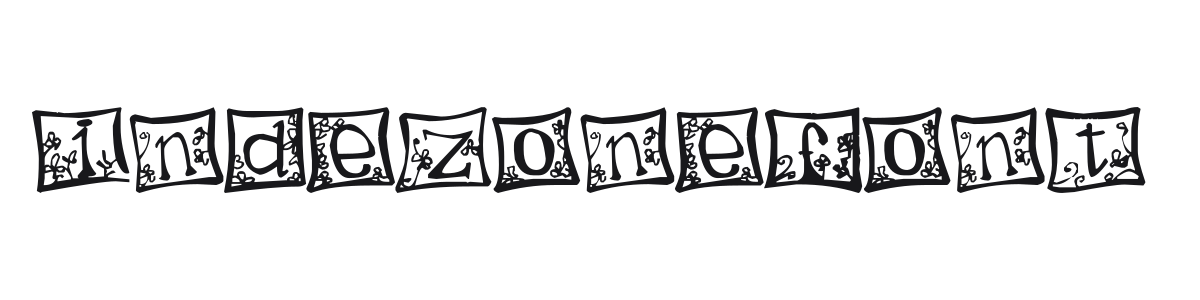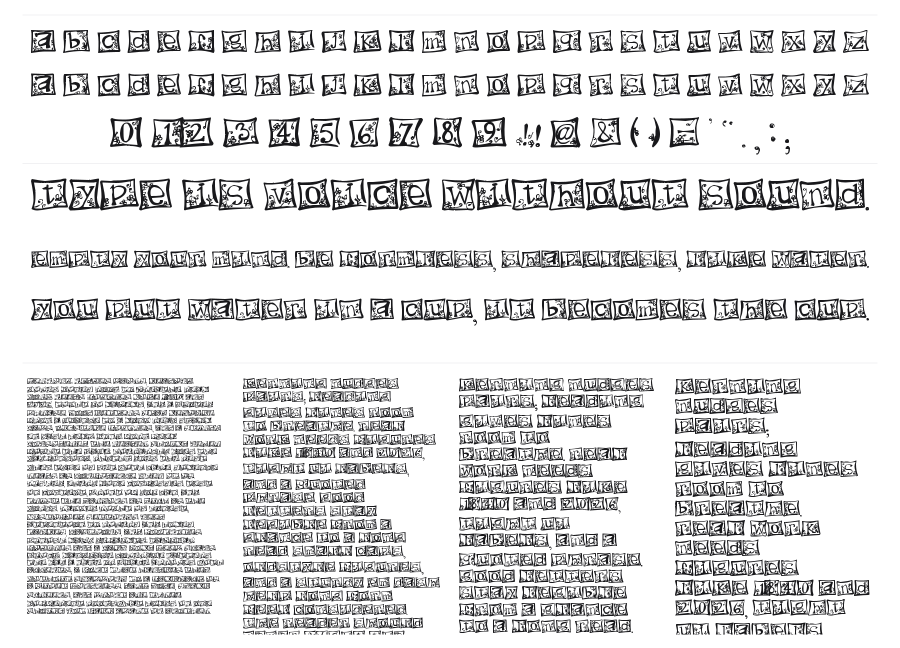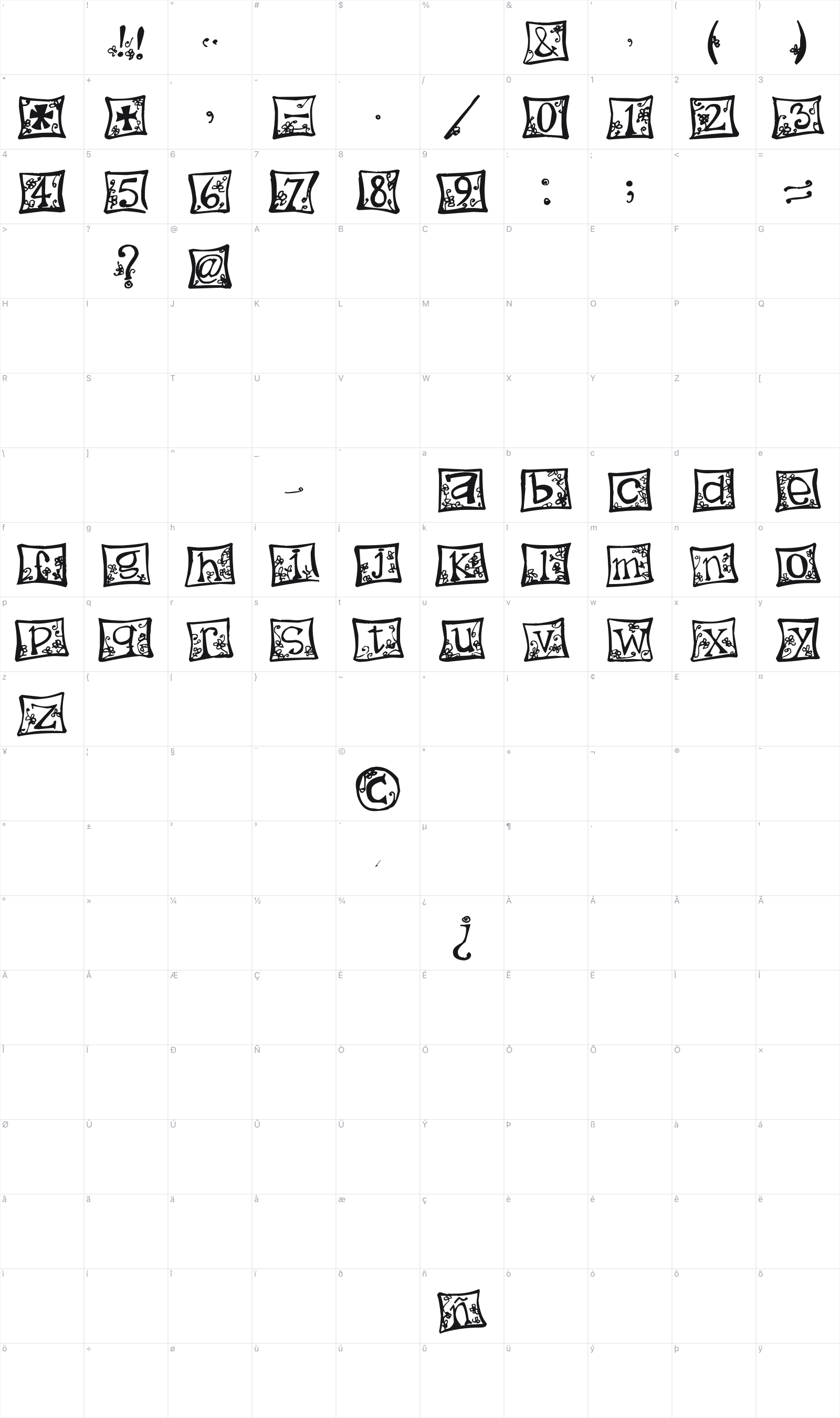
Indezonefont
Indezonefont is a hand-drawn novelty display face where every character sits inside its own sketchy rectangular frame, decorated with tiny floral and vine doodles. The combination of enclosing borders and botanical ornamentation gives it a stamp-like, sketchbook quality that feels genuinely handmade rather than digitally simulated. Best used large, where the intricate detail inside each frame reads clearly.